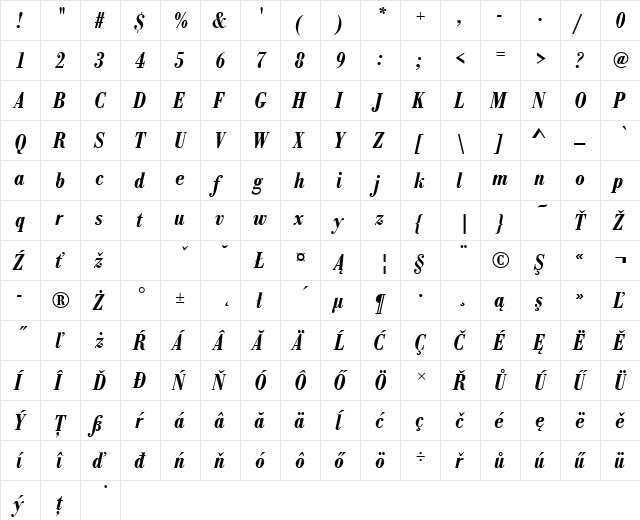
BodoniAntTEEDemBolCon Italic
Design Context for BodoniAntTEEDemBolCon Typeface
BodoniAntTEEDemBolCon takes a measured approach to typography — its balanced proportions and neutral character make it a reliable workhorse for both digital and print work. Its italic angle brings a sense of urgency and motion to the letterforms.